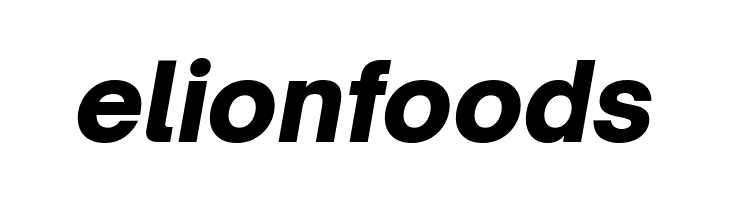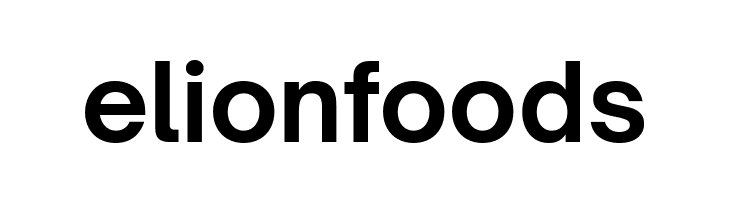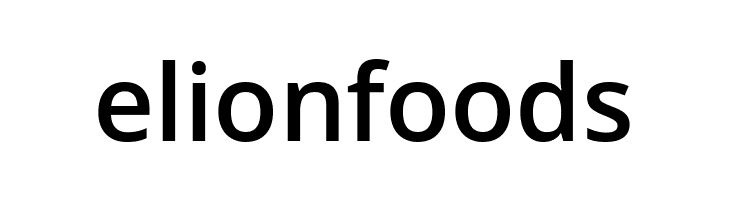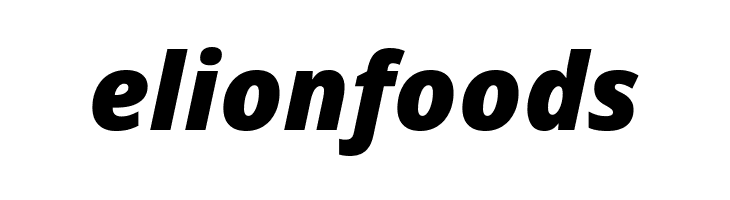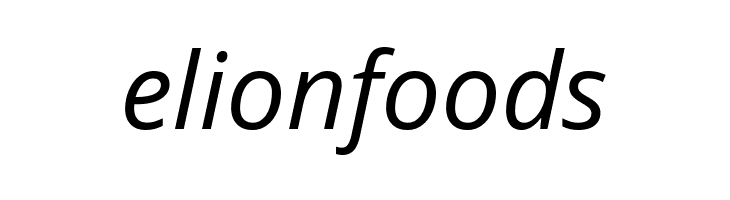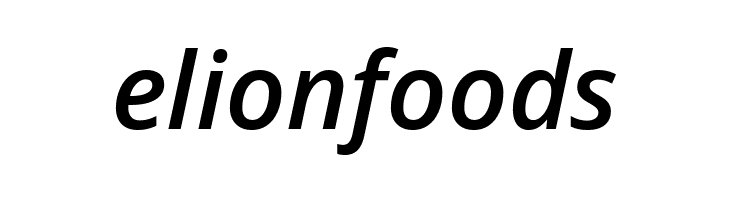
A bold, modern typeface with thick strokes and clean lines.
A bold, italicized font with strong, impactful strokes for modern designs.
A modern, italic sans-serif font with clean lines and excellent readability.
A clean, modern sans-serif font with a light weight and excellent readability.
A light, italic sans-serif font with a modern and elegant style.
A clean, modern sans-serif font with semi-bold weight and excellent readability.
A modern, semi-bold italic sans-serif font with excellent readability.
A bold, italicized font with strong, thick strokes and a modern style.
A bold, modern sans-serif font with clean lines and excellent readability.